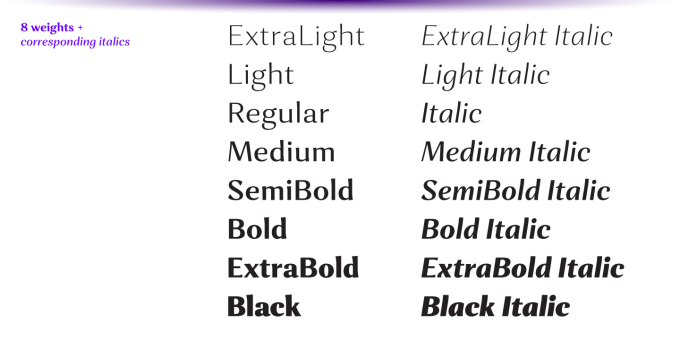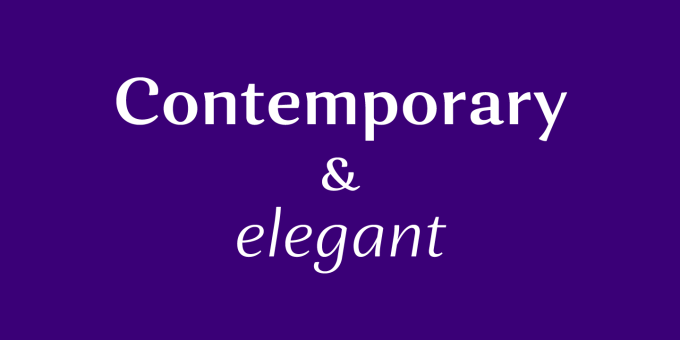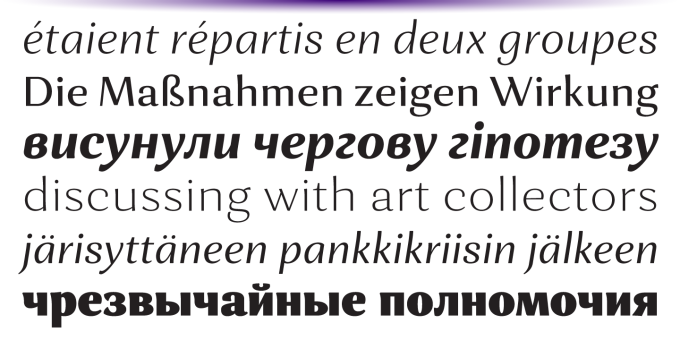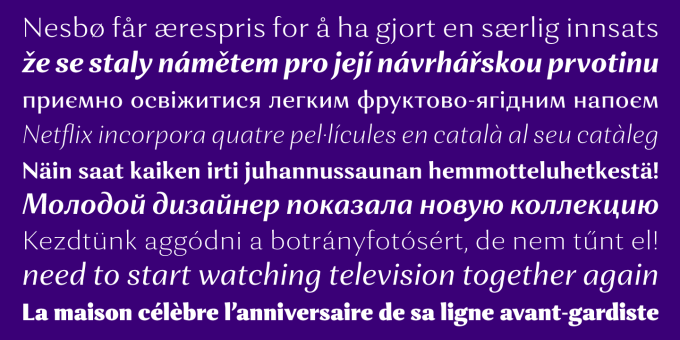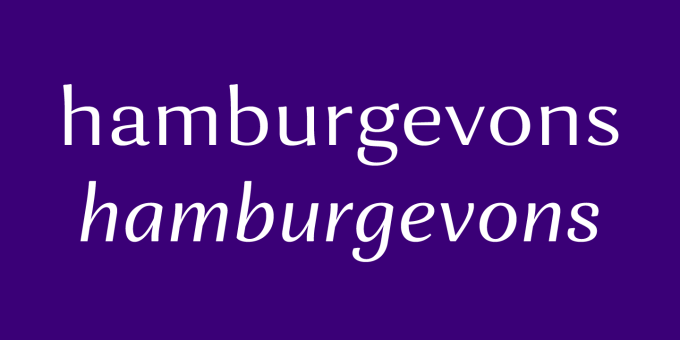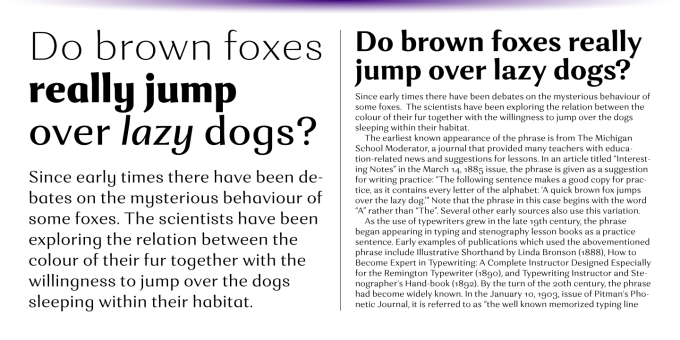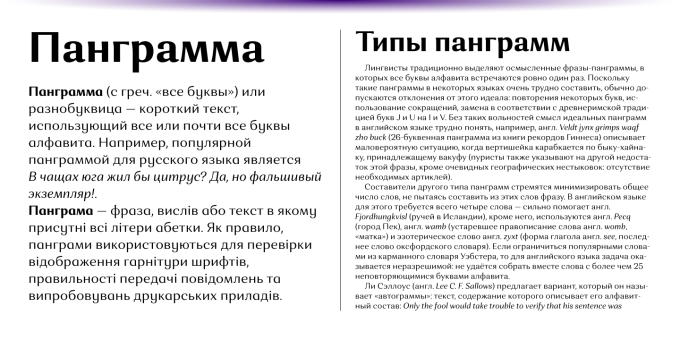
Orchidea Pro
Orchidea Pro is a typeface balancing on the verge of sans and serif. Called a stressed sans or a serifless serif, it does not feature any serifs, but resembles a serif typeface by build, and features unilateral nibs that speed up the reading and create a particular distinction in the form.
Such solution results in a contemporary-looking yet elegant type, virtually unique in texture, that exists in the same stylistic space as flared serif families.
Orchidea Pro will fit particularly well for use in magazines of any theme, as well as in branding for beauty-related products.
The typeface comes in 8 weights + corresponding real italics, each supporting numerous Latin-based languages as well as major Cyrillic languages. It is packed with OpenType features like ligatures, small caps, 5 sets of digits, 4 stylistic sets in romans and 1 in italics, superiors and inferiors, fractions, ordinals, respective punctuation varieties including all-cap punctuation, as well as language-specific alternates.